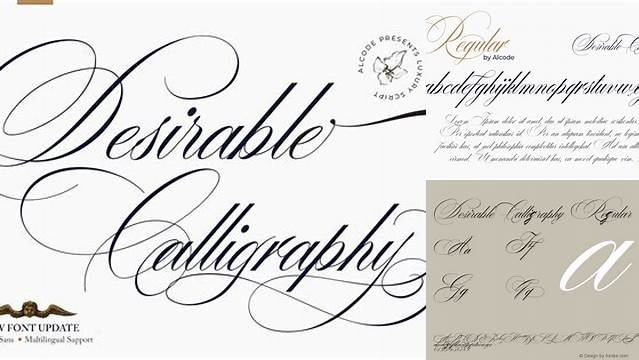
Are you looking to add a touch of elegance and sophistication to your design projects? Look no further than desirable calligraphy fonts! These fonts, with their flowing lines and graceful curves, can elevate your work, making it stand out from the crowd. Whether you're designing invitations, logos, websites, or any other creative project, a beautiful calligraphy font can make all the difference. This comprehensive guide will delve into the world of calligraphy fonts, specifically focusing on how to find and download the desirable regular style for free, and how to make the most of it in your designs.
Understanding the Allure of Calligraphy Fonts
Before we dive into the specifics of downloading fonts, let's first understand why calligraphy fonts are so popular and effective. Calligraphy fonts evoke a sense of tradition, artistry, and personal touch. Unlike standard, blocky fonts, calligraphy imitates the fluidity of handwriting, adding a human element to digital text. This makes it ideal for projects that aim to convey warmth, sincerity, or a sense of luxury. Think about wedding invitations, where a calligraphy font immediately sets a romantic and elegant tone. Or consider a high-end brand logo, where a carefully chosen calligraphy font can communicate sophistication and exclusivity. The versatility of calligraphy fonts is immense; they can be adapted to suit a wide range of aesthetics, from vintage and classic to modern and chic. The beauty of calligraphy fonts lies in their unique character. Each stroke, each curve, and each flourish contributes to the overall personality of the font. This inherent expressiveness allows designers to communicate emotions and ideas in a way that standard fonts simply cannot match. For instance, a bold, flowing calligraphy font might be perfect for a dramatic headline, while a delicate, airy font could be ideal for body text in a literary work. The visual appeal of calligraphy fonts extends beyond their aesthetic qualities. They also possess a certain readability that can enhance the user experience. While overly ornate or complex calligraphy fonts can be difficult to decipher, well-designed fonts in a regular style strike a balance between elegance and legibility. This makes them suitable for a variety of applications, from website headers to print materials. When used thoughtfully, calligraphy fonts can create a lasting impression on your audience, leaving them with a sense of artistry and attention to detail. So, if you're looking to add a touch of class and personality to your next design project, exploring the world of calligraphy fonts is definitely worth your time. Let's explore where you can find these gems for free and how to ensure you're using them legally and effectively.
Tips for Maximizing the Impact of Calligraphy Fonts
Now that you've got your desirable calligraphy font installed and ready to roll, let's talk about how to use it effectively to make a real impact in your designs. It's not just about slapping a fancy font on your project; it's about using it strategically to enhance your message and visual appeal. The first golden rule of using calligraphy fonts is to consider the context of your design. What's the overall message you're trying to convey? Is it formal, playful, romantic, or something else? The calligraphy font you choose should align with the tone and purpose of your project. For instance, if you're designing a wedding invitation, a delicate and flowing calligraphy font can evoke a sense of romance and elegance. On the other hand, if you're creating a logo for a modern brand, a cleaner and more contemporary calligraphy style might be more appropriate. Remember, the font is a visual cue that helps communicate your message, so choose wisely. Another key factor to consider is legibility. While calligraphy fonts are beautiful, some can be quite ornate and difficult to read, especially in smaller sizes. If your text is hard to decipher, your message will be lost, no matter how pretty the font looks. So, prioritize readability, especially for body text or large blocks of text. Opt for fonts that have clear and distinct letterforms, and avoid overly elaborate flourishes that can obscure the words. Think about the hierarchy of your design. Calligraphy fonts are often best used for headings, titles, or short phrases where they can make a statement without overwhelming the page. Using calligraphy for large blocks of text can be tiring for the eyes and reduce readability. Instead, consider pairing your calligraphy font with a simpler, more legible font for body text. This creates a visual hierarchy that guides the reader's eye and makes your design more balanced. Experiment with font pairing. Combining a calligraphy font with a contrasting font style can add visual interest and sophistication to your design. For example, pairing a classic calligraphy font with a clean sans-serif font can create a modern and elegant look. The key is to find fonts that complement each other without clashing. Look for fonts that have similar x-heights (the height of the lowercase letters) and stroke weights (the thickness of the lines) to ensure a harmonious pairing. Pay attention to kerning and tracking. Kerning refers to the space between individual letters, while tracking refers to the overall spacing of a block of text. Calligraphy fonts often require careful kerning and tracking adjustments to ensure that the letters flow smoothly and evenly. If the spacing is too tight or too loose, the font can look awkward and difficult to read. Most design software allows you to adjust kerning and tracking manually, so take the time to fine-tune the spacing of your calligraphy text. Consider the use of color and texture. The color and texture of your calligraphy text can significantly impact its visual appeal. A bold color can make your calligraphy font stand out, while a subtle color can create a more understated look. Experiment with different textures, such as gradients or patterns, to add depth and dimension to your text. However, be careful not to overdo it; too much color or texture can distract from the elegance of the calligraphy. Finally, remember the principle of less is more. Calligraphy fonts are powerful design elements, but they can easily become overwhelming if used excessively. Use them sparingly and strategically to highlight key messages and create visual interest. Avoid using too many different calligraphy fonts in a single design, as this can create a cluttered and chaotic look. By following these tips, you can maximize the impact of your calligraphy fonts and create stunning designs that capture the essence of elegance and sophistication.
Conclusion: Embrace the Elegance of Free Calligraphy Fonts
So, there you have it, guys! A comprehensive guide to finding and using desirable calligraphy regular fonts for free. We've covered everything from understanding the allure of calligraphy fonts to navigating the world of free font resources, installing and using your new fonts, maximizing their impact, and avoiding common pitfalls. The world of calligraphy fonts is vast and exciting, offering a wide range of styles and personalities to suit any design project. By understanding the principles of typography and using these fonts strategically, you can add a touch of elegance, sophistication, and personality to your work. Remember, the key to using calligraphy fonts effectively is to consider the context of your design, prioritize legibility, and experiment with different font pairings and styles. Don't be afraid to mix and match fonts, adjust kerning and tracking, and play with colors and textures to create a unique and visually appealing look. When searching for free fonts, always be mindful of licensing restrictions and download from reputable sources to avoid legal issues and malware. Take the time to test fonts thoroughly to ensure they are of good quality and meet your needs. And most importantly, have fun and let your creativity shine! With the knowledge and tips shared in this guide, you're well-equipped to explore the world of free calligraphy fonts and discover the perfect fonts to elevate your design projects. So go ahead, download some beautiful fonts, and start creating something amazing. The elegance of calligraphy is now at your fingertips, ready to transform your designs and captivate your audience. Happy designing!